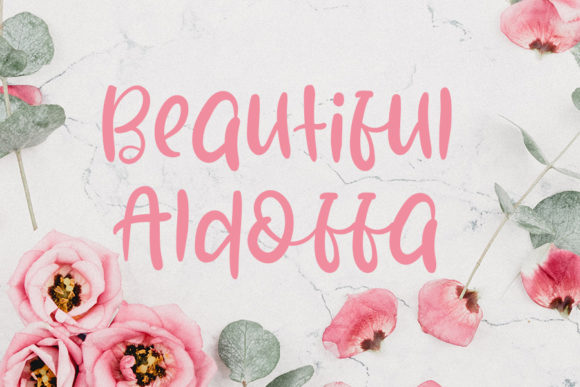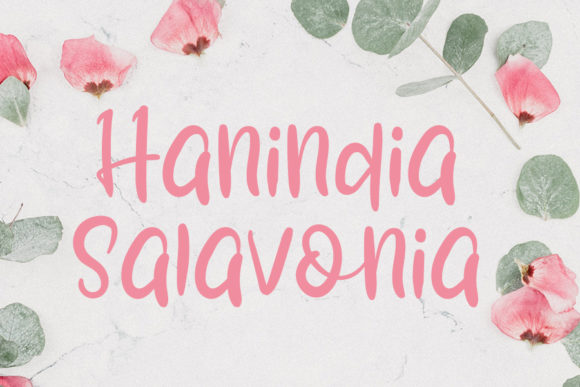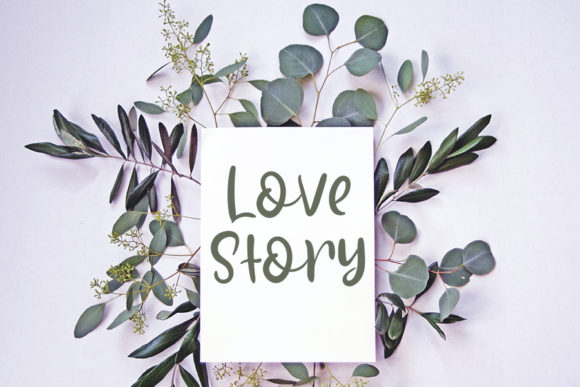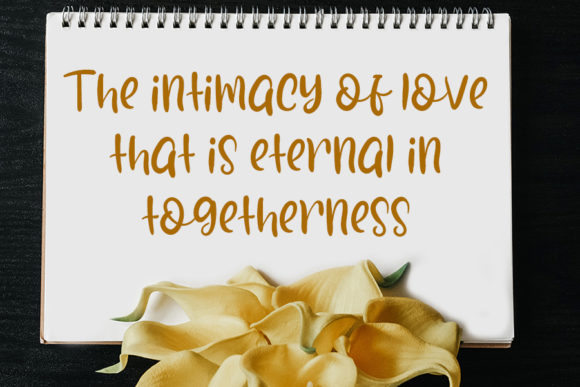
Silloamstaf Font
About Silloamstaf Font
“Silloamstaf” is a font that exudes elegance and sophistication through its flowing handwritten style. With an innate charm that captures attention, this font is the perfect companion for your most cherished projects. Its distinct and timeless design is sure to make you fall in love, as it becomes a powerful tool to craft designs that are nothing short of spectacular.
The elegance of “Silloamstaf” lies in its delicate yet impactful touch. Every stroke is a testament to its timeless beauty, allowing it to seamlessly blend with a variety of design concepts. Whether gracing wedding invitations with a touch of refinement or adding a sophisticated flair to logos and branding, this font adapts effortlessly to your creative vision.
As you work with “Silloamstaf,” you’ll appreciate its ability to transform ordinary designs into extraordinary works of art. The flowing nature of the letters adds a sense of fluidity and grace, creating a harmonious visual experience. Its distinct style stands as a testament to its uniqueness, ensuring that your projects leave a lasting impression on anyone who encounters them.
Let “Silloamstaf” become your creative muse as you embark on design endeavors. Fall in love with its elegant touch and timeless appeal, allowing it to elevate your projects to new heights. With each letter, you’ll discover the potential to craft designs that are truly spectacular, leaving a mark on both you and your audience.